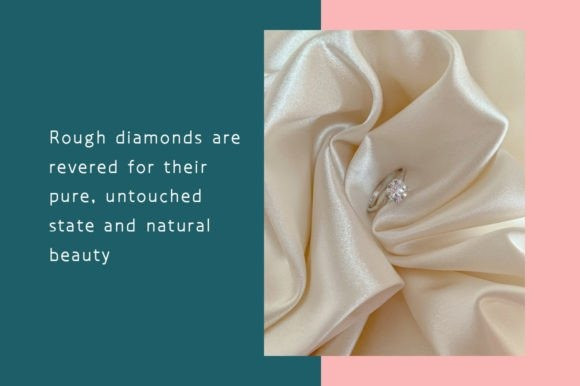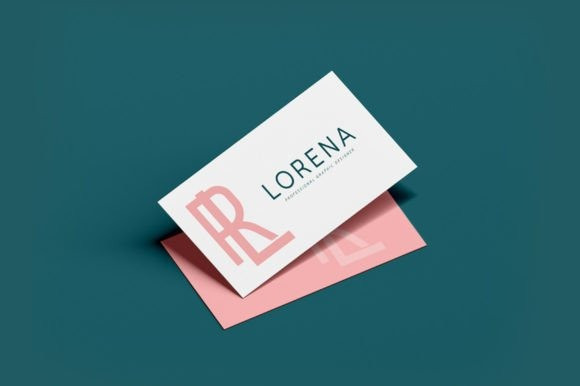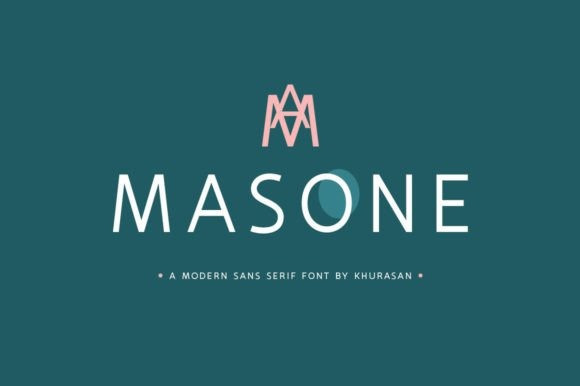
Masone Font
Masone Sans Serif Font is a simply semi-geometric sans serif font that has own unique style & modern look. It’s designed and shared by Khurasan. Masone font suitable for logo, branding, greeting card, poster and any design that you create.